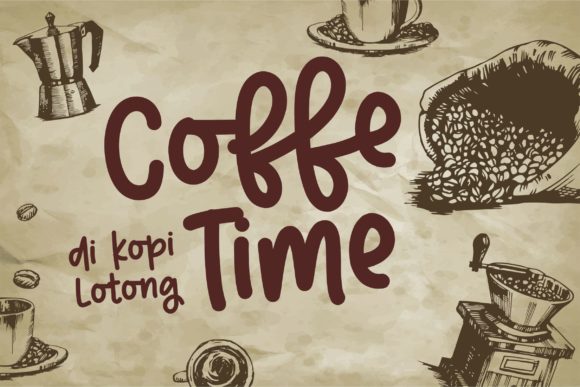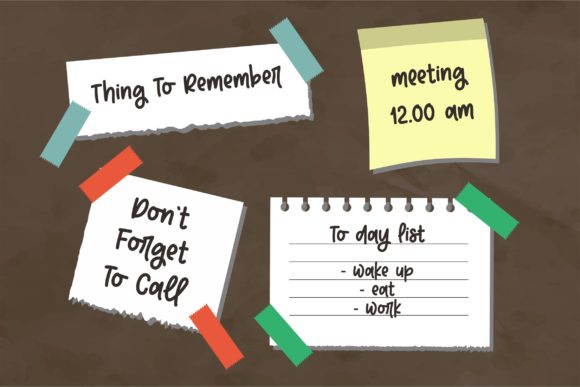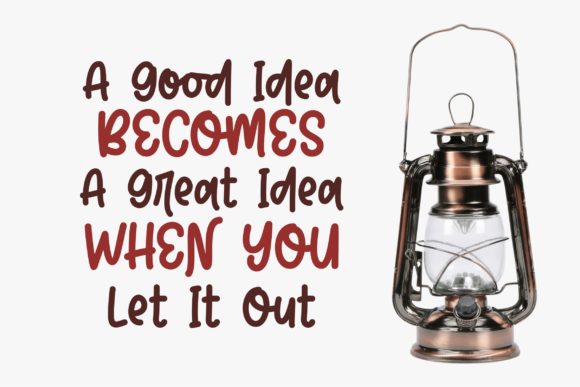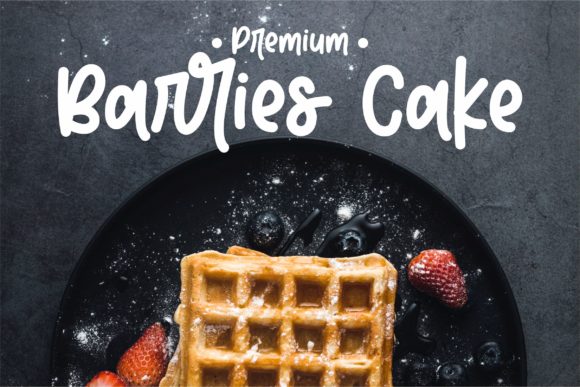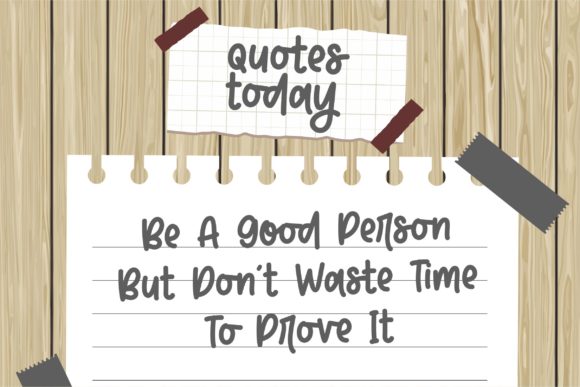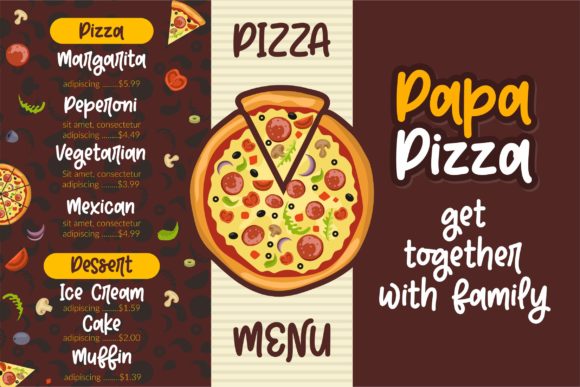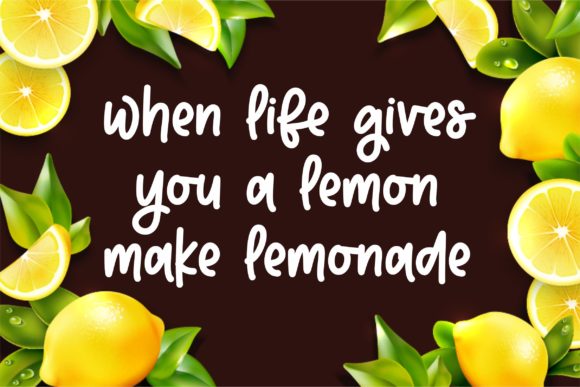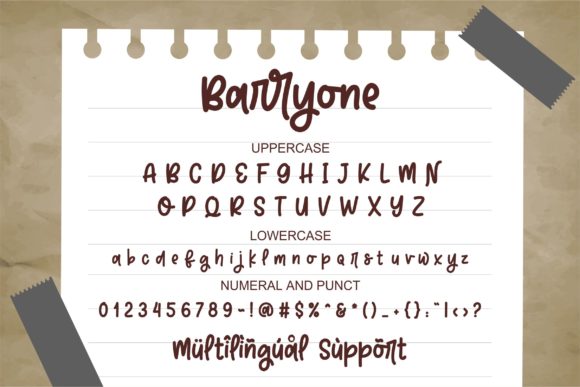
Barryone Font
About Barryone Font
Barryone results out of a stunning pairing of a brush pen and pencil that makes it look incredibly endearing and authentic. Use this gorgeous and unique handwritten font to bring any DIY project to life!